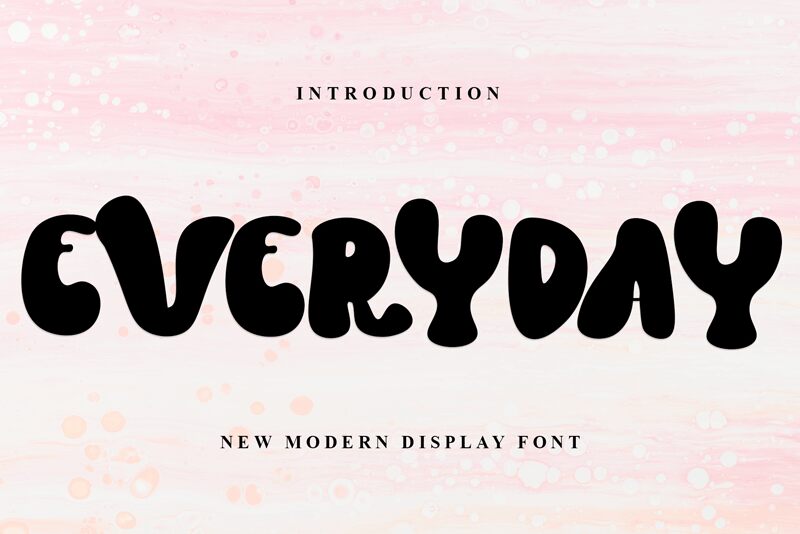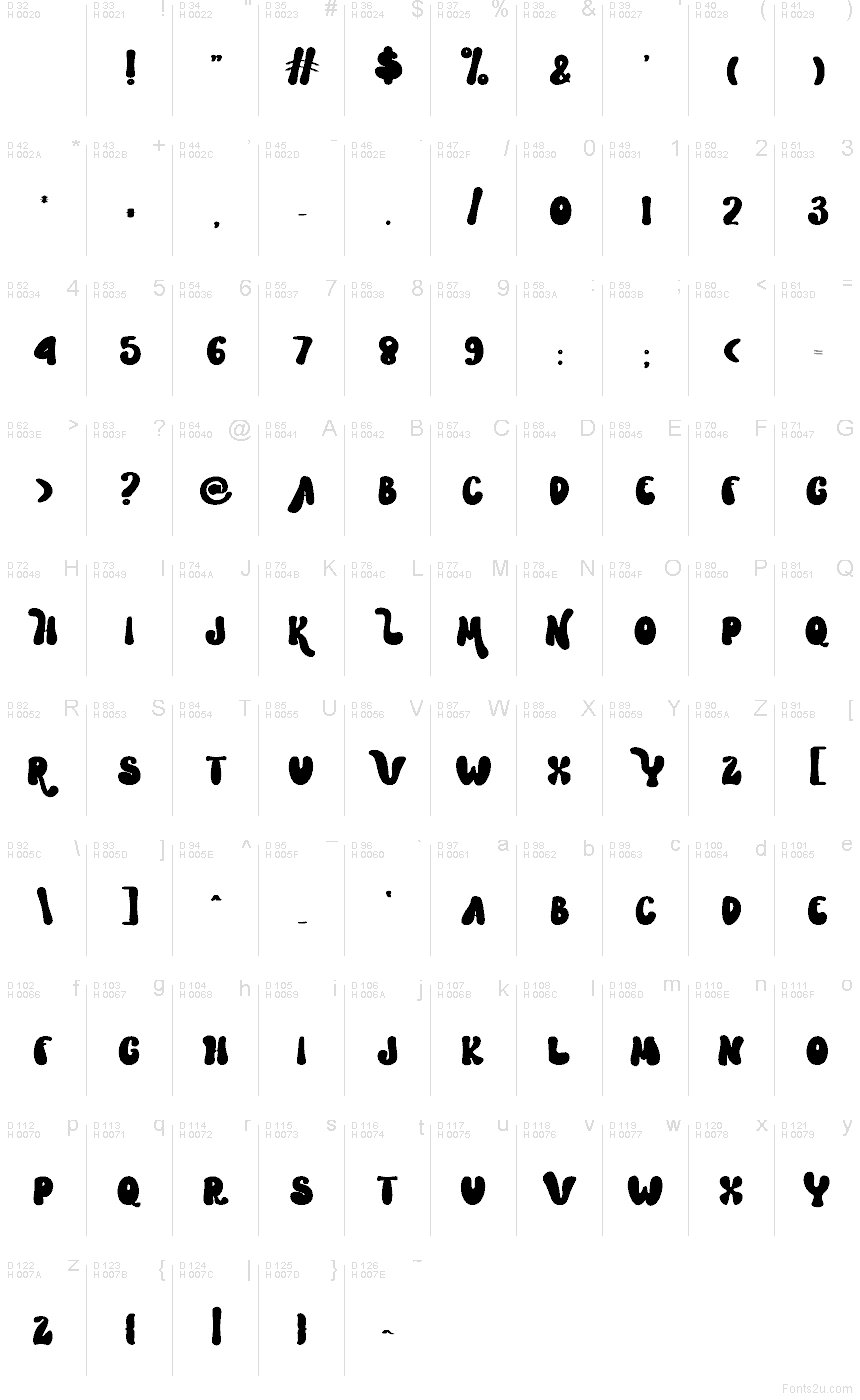
Everyday
Everyday font by Inermedia Studio is a free groovy display typeface that oozes retro charm. Thick, inky letterforms swell and wobble like they’ve been poured rather than drawn, with soft curves and bulbous shapes that feel playful and a little rebellious. It has a bold, all-caps presence that instantly sets a laid-back, funky tone without needing extra graphics to sell the vibe.
Using Everyday, this free font shines on posters, merch, packaging, event flyers, social media graphics, and bold headline treatments where you want that 70s-inspired, feel-good energy. Its chunky rhythm reads best at larger sizes, where the blobby contours can really breathe. Pair Everyday with a clean, neutral sans serif for body text to keep layouts readable while letting this groovy typeface hog the spotlight.